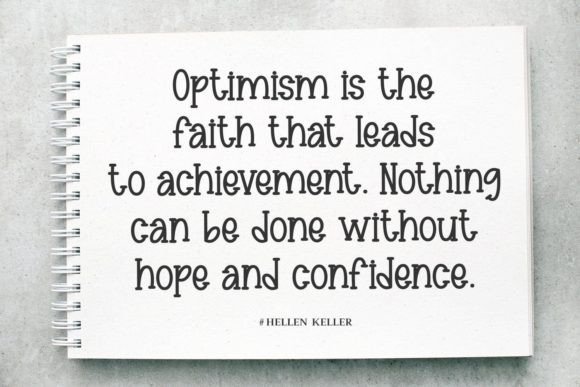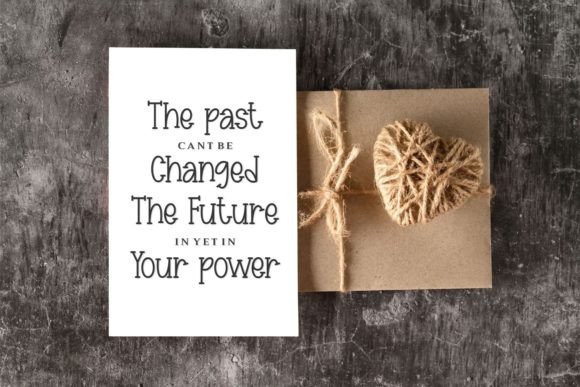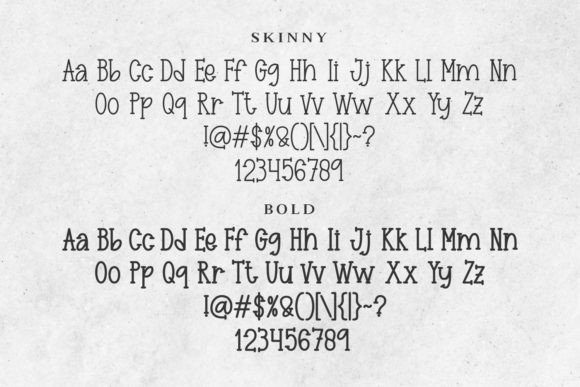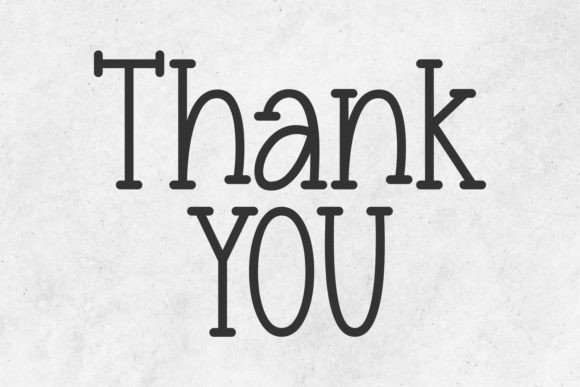
Introduction to Playwork Font
Do you ever find yourself in the middle of a creative project, searching for that perfect font to bring your vision to life? I know I do. Whether it’s designing a set of gift tags or crafting a quote for a friend’s birthday, the right font can make all the difference. And, let me tell you, I’ve recently stumbled upon a hidden gem that has taken my design game to the next level – the Playwork Font.
This delightful serif font is not only a joy to work with but also boasts a unique personality, thanks to its special handwritten characters. With its high quality design and transparent background, it’s a dream to use in various creative projects. And, as a bonus, it’s PUA encoded, making it easy to access all the glyphs and swashes you need. As a designer, I can attest to the value of having such a versatile and accessible design resource at your fingertips.
Key Features of Playwork Font
- High-quality design with a transparent background, making it ideal for creative projects.
- Unique, hand-drawn style with a playful feel, perfect for adding a creative touch to designs.
- Designed to be highly legible, even at small font sizes, making it suitable for various design applications.
Honest Review: Playwork Font
I recently had the chance to work with the Playwork Font, and I must say it’s a high-quality design resource that exceeded my expectations. The font is versatile and perfect for creative projects where you want to add a touch of playfulness and whimsy.
- ✨ High-quality font files that are clear and easy to read.
- ✨ Transparent background, making it easy to overlay on any design.
- ✨ Perfect for a wide range of creative projects, from branding to web design.
- ⚠️ Limited character set, which may not be suitable for longer blocks of text.
- ⚠️ Some users may find the font too playful or childish for certain projects.
Overall, I’m really impressed with the Playwork Font. It’s a great addition to any designer’s toolkit, and I would definitely recommend it for creative projects where you want to add a touch of fun and personality. Just be aware of its limitations, and use it judiciously.
The Playwork Font is a high-quality design resource that can elevate your creative project with its unique and stylish typography. With its transparent background, this font is perfect for use in various design applications.
Tips for Getting the Most Out of Playwork Font
To get the most out of the Playwork Font, use it in creative and innovative ways, such as:
- Using it as a title font for a design project
- Combining it with other fonts for a unique typography style
- Experimenting with different font sizes and colors to create visual interest
The Playwork Font is perfect for:
- Designing a logo or branding materials
- Creating a poster or flyer
- Developing a website or web application